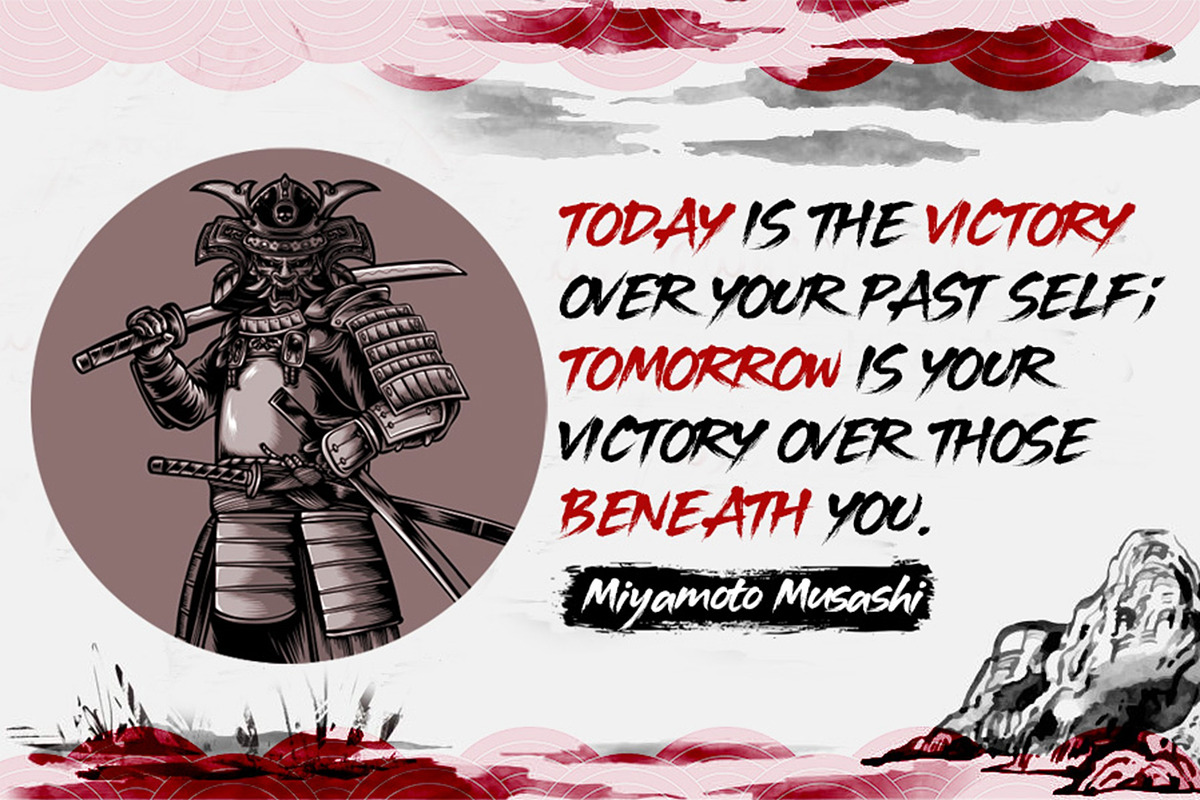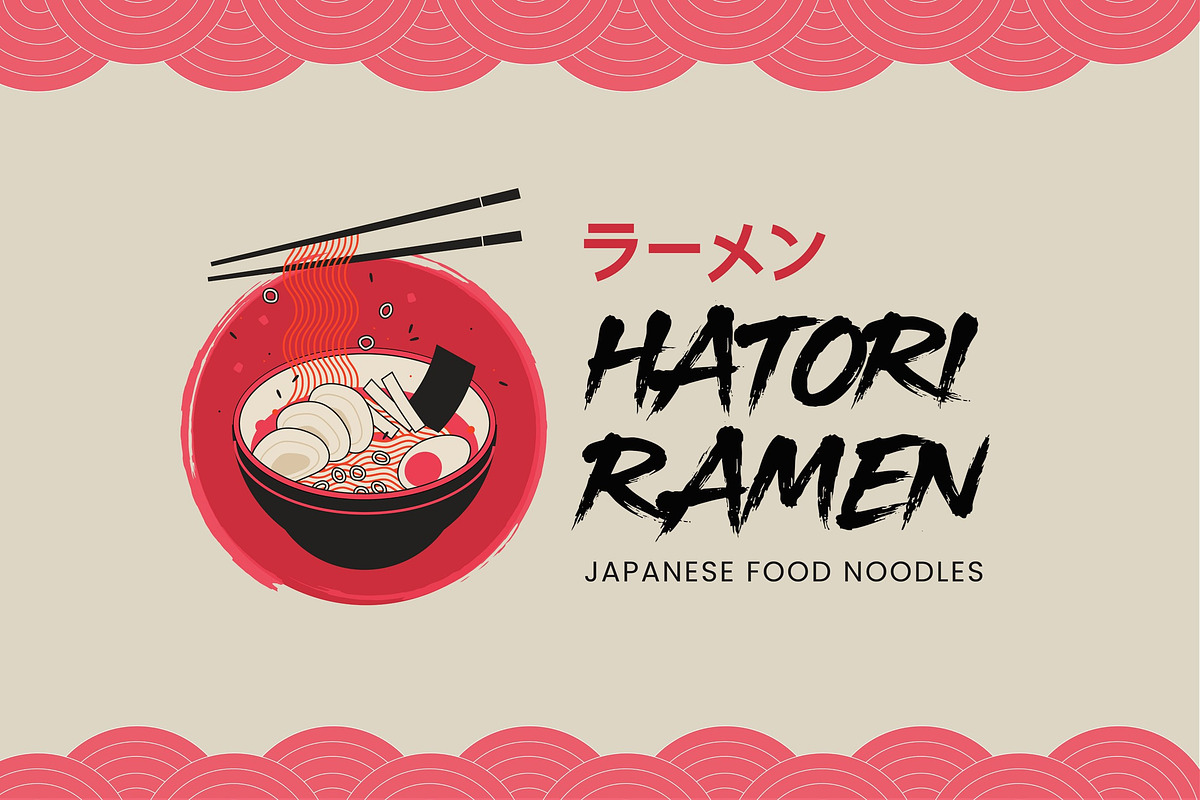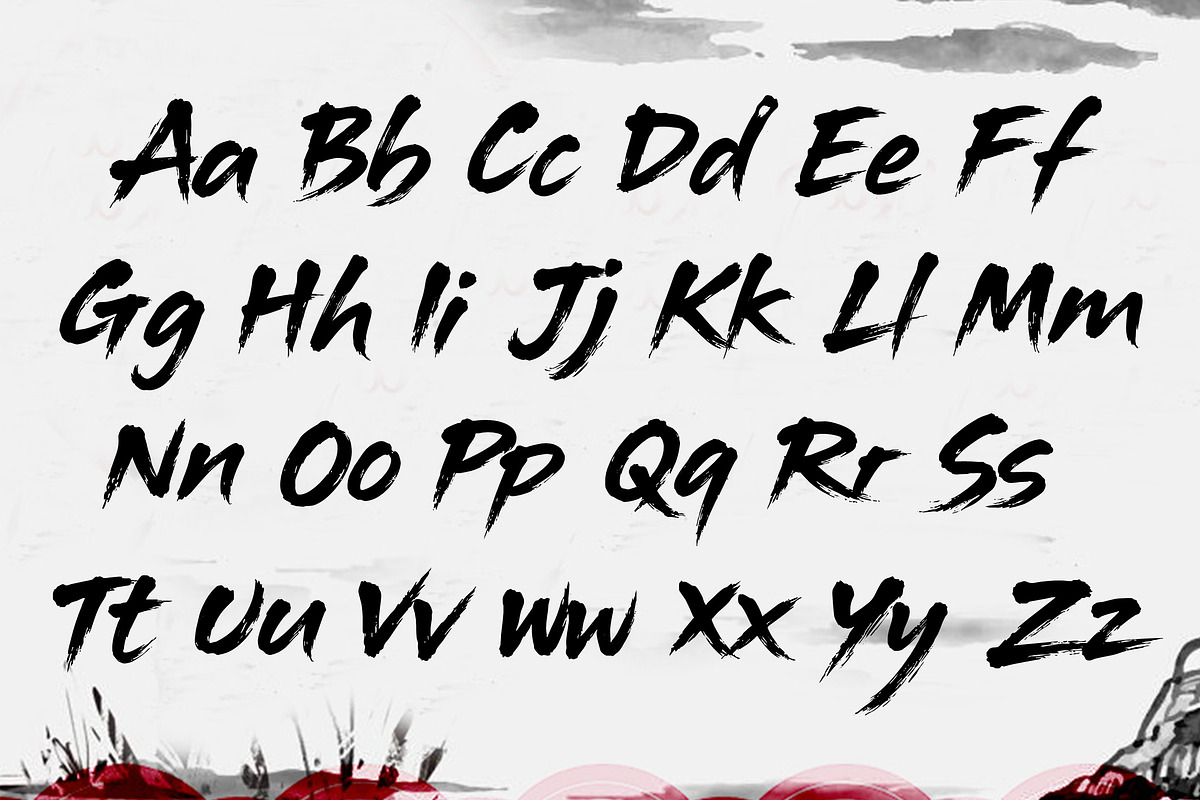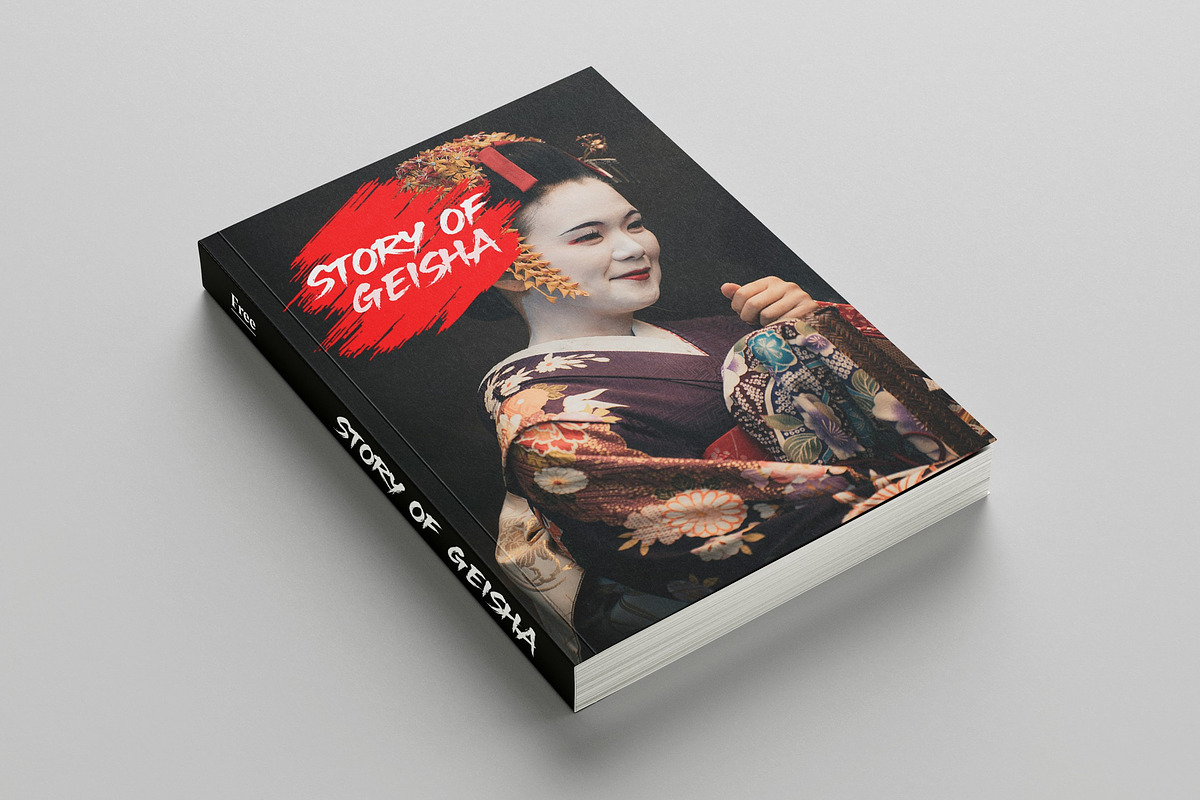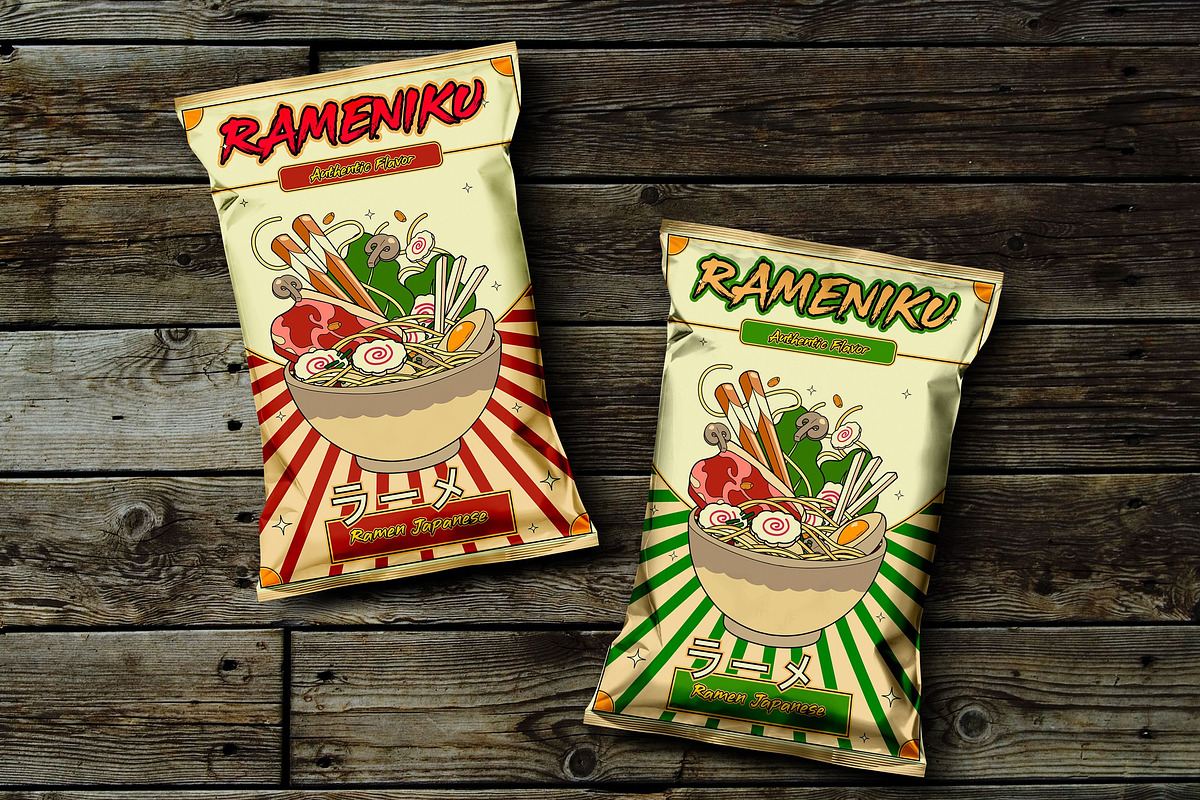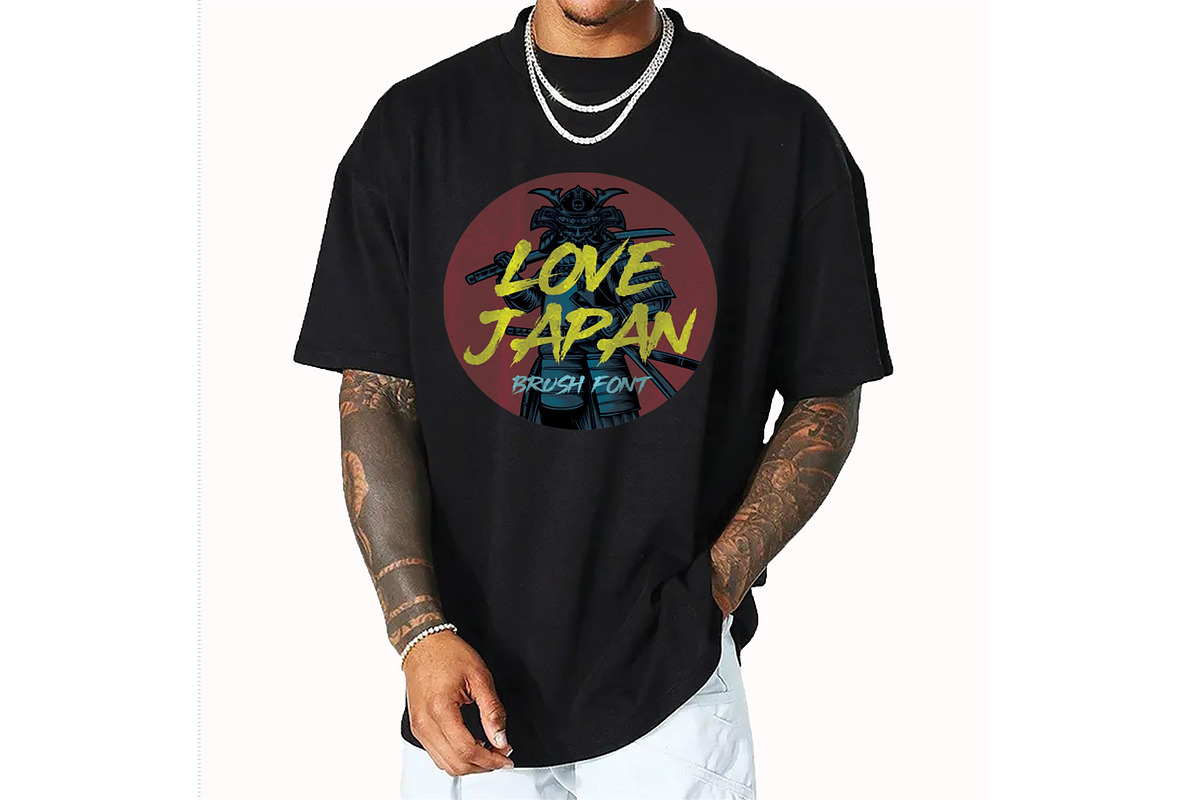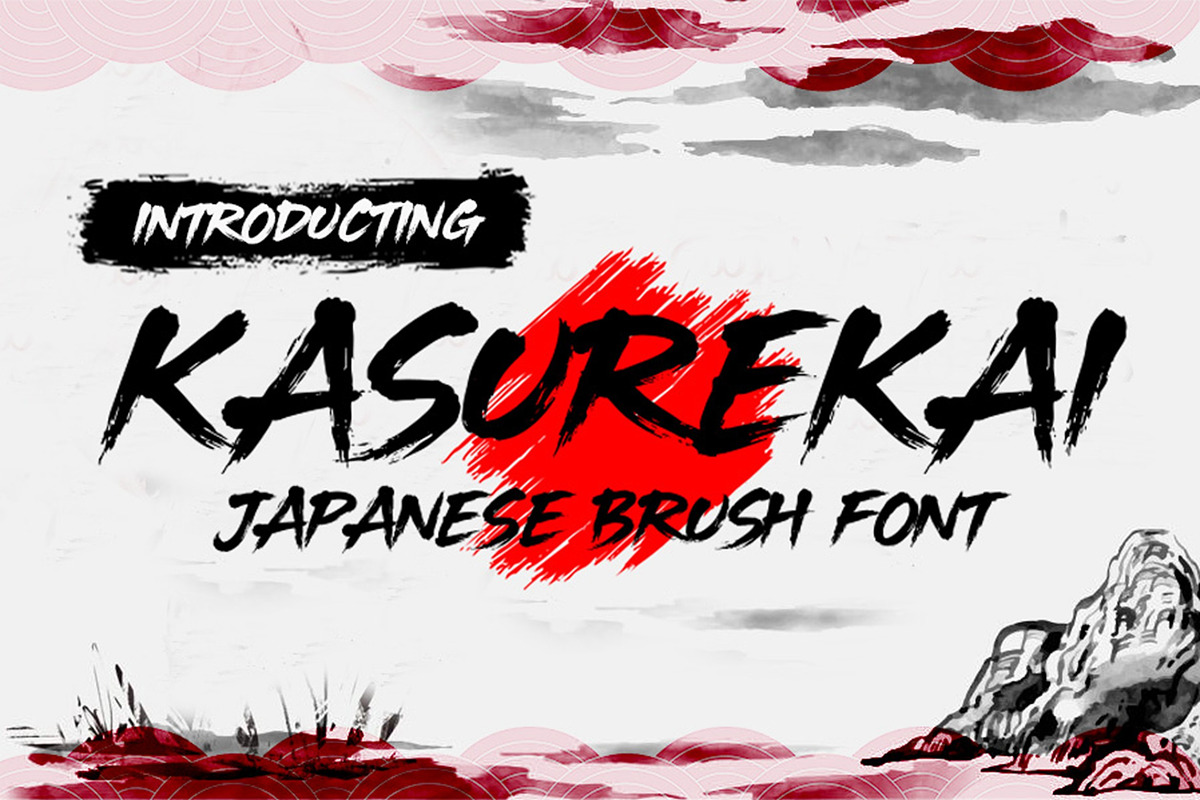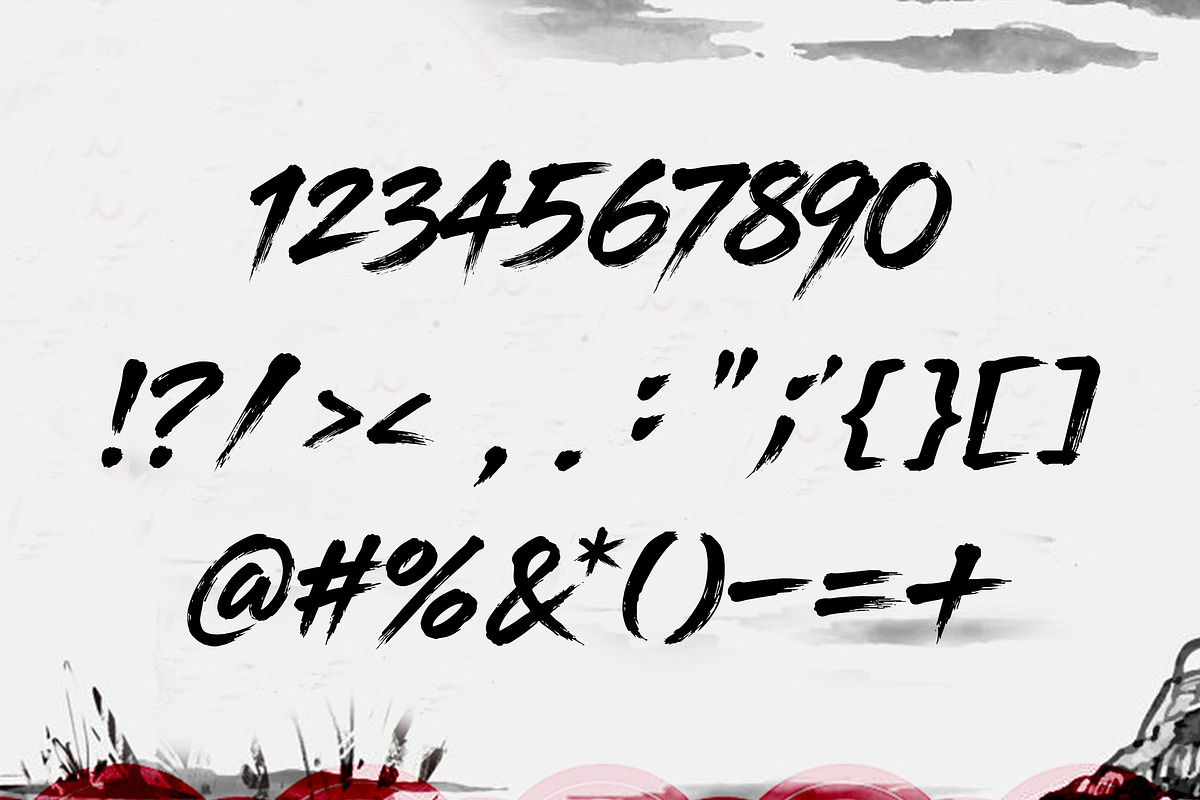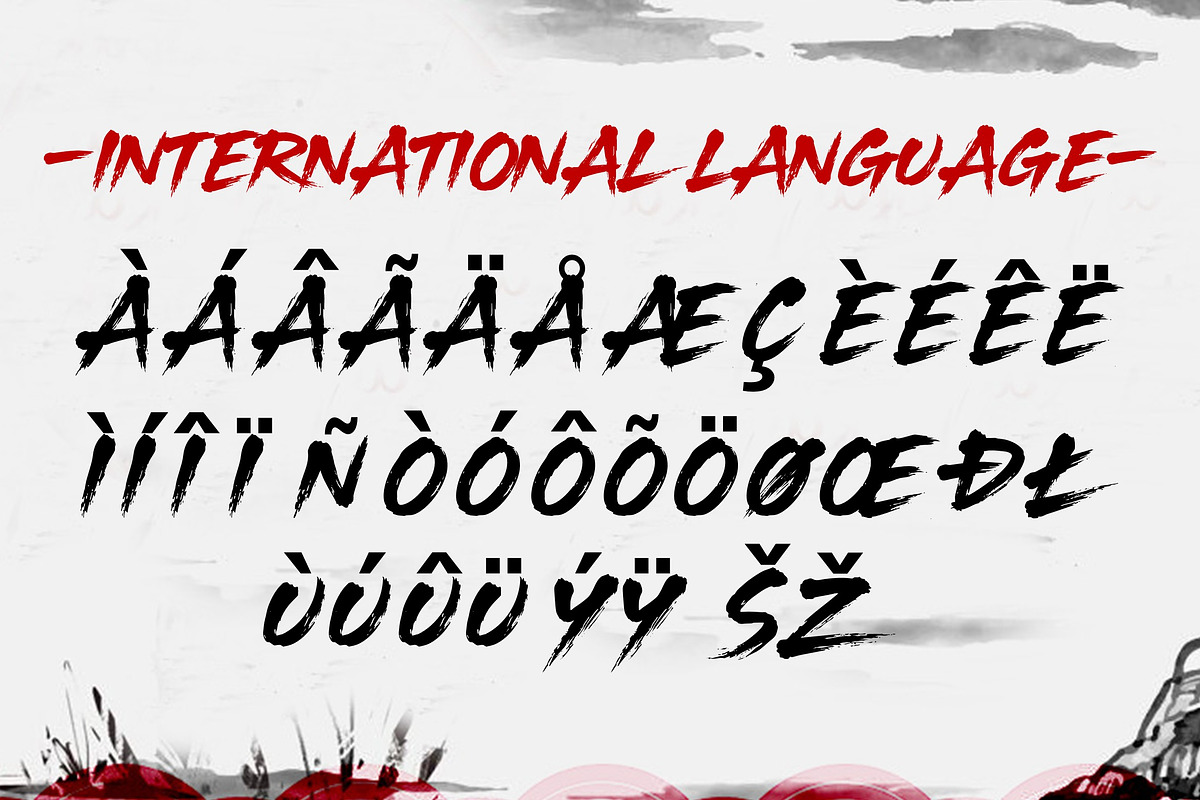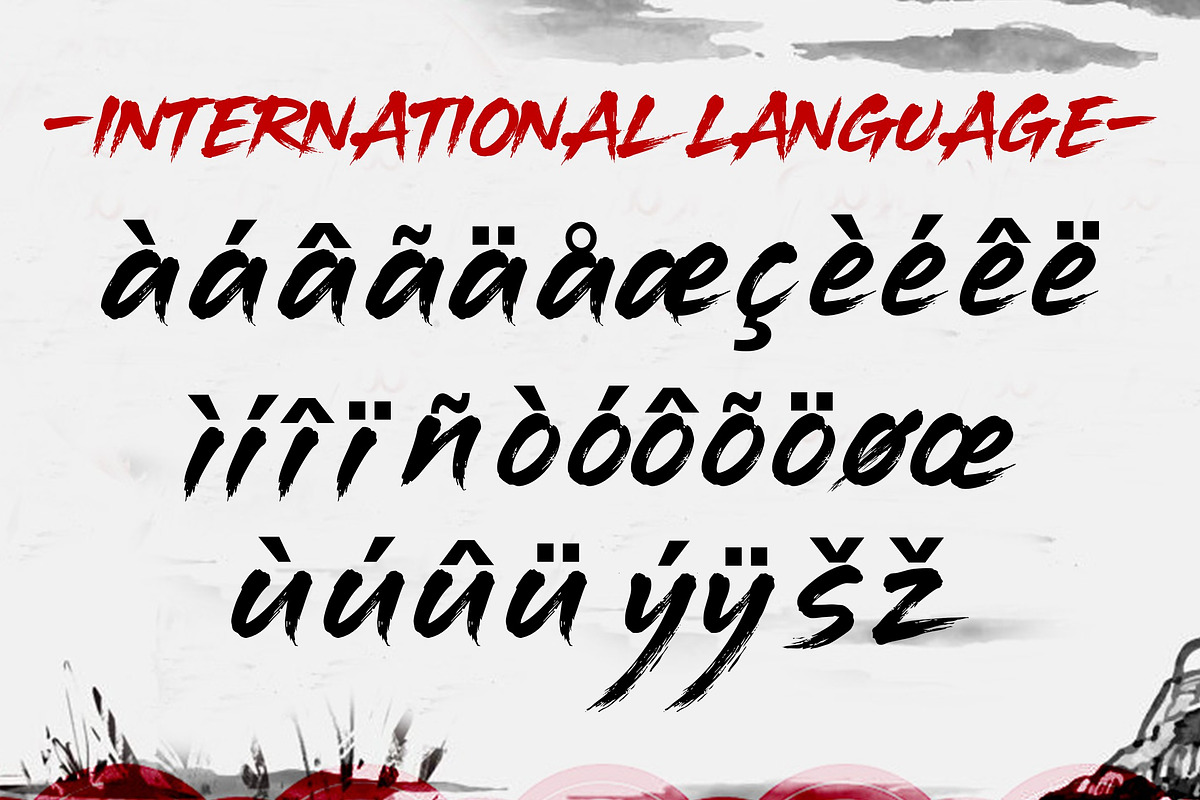
Kasurekai Brush
Kasurekai – Japanese Dry Brush Typeface
Kasurekai is a bold and expressive Japanese dry brush font that captures the raw energy of traditional calligraphy. With its textured strokes and organic feel, it's perfect for projects that seek authenticity and any design that aims to stand out with a touch of cultural flair.
- 223 Glyps included Uppercase, Lowercase, Numeral, Punctuation, Multilingual international Language.